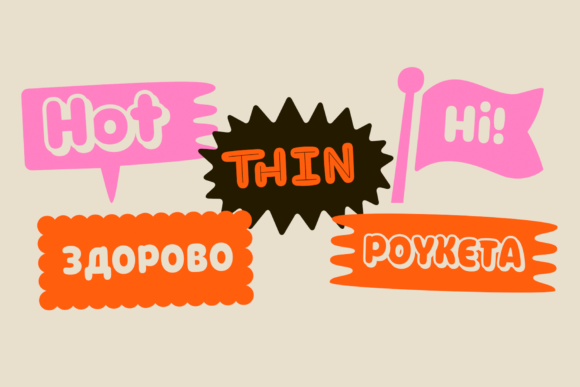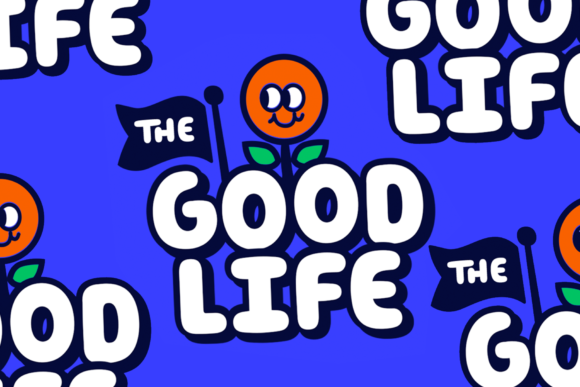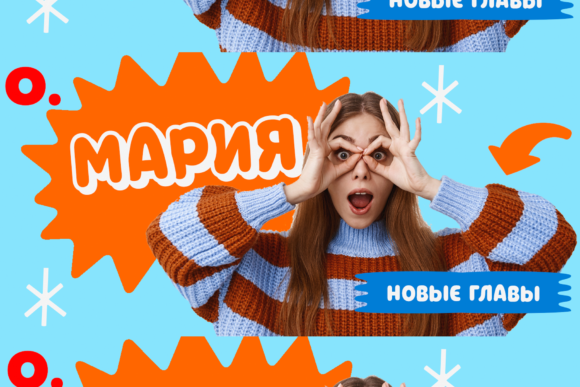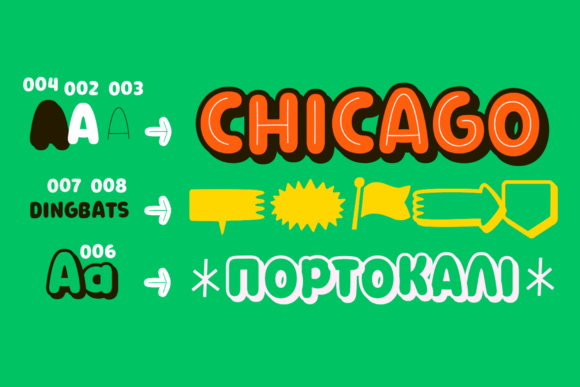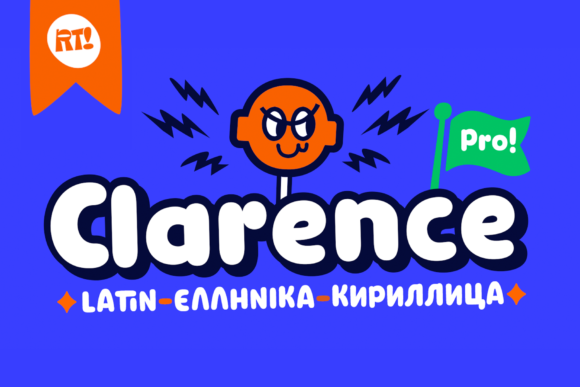
Introducing Clarence Pro Font: Elevate Your Designs with a Cool Display Font
Are you tired of using the same old fonts for your designs? Look no further! Clarence Pro Font is here to take your creative projects to the next level. This cool display font is perfect for designers and crafters who want to add a touch of uniqueness to their work. In this article, we’ll explore the features and benefits of Clarence Pro Font, and how it can elevate your designs.
What is Clarence Pro Font?
Clarence Pro Font is a stylish and modern display font that is designed to make a statement. Its sleek lines, elegant curves, and bold presence make it perfect for a variety of design projects, including posters, flyers, prints, and more. Whether you’re a professional designer or a crafty DIY enthusiast, Clarence Pro Font is sure to impress.
Key Features of Clarence Pro Font
• Unique and Stylish Design: Clarence Pro Font boasts a distinctive and stylish design that sets it apart from other fonts. Its modern and sleek lines make it perfect for designs that require a touch of sophistication.
• High-Quality and Versatile: This font is designed to be versatile and can be used for a wide range of projects, from posters and flyers to logos and branding materials.
• Easily Customizable: Clarence Pro Font is easy to customize, allowing you to adjust the font size, color, and style to suit your design needs.
Benefits of Using Clarence Pro Font
So, why should you choose Clarence Pro Font for your designs? Here are just a few benefits:
• Adds a Touch of Sophistication: Clarence Pro Font adds a touch of elegance and sophistication to your designs, making them stand out from the crowd.
• Increases Readability: The clear and bold design of this font ensures that your text is easily readable, even at small sizes.
• Saves Time and Effort: With Clarence Pro Font, you can create stunning designs in no time. Its versatility and ease of use save you time and effort, allowing you to focus on other creative aspects of your project.
Endless Possibilities with Clarence Pro Font
The possibilities are endless when it comes to using Clarence Pro Font. Here are a few ideas to get you started:
• Poster Design: Use Clarence Pro Font to create eye-catching posters for events, promotions, or announcements.
• Flyer Design: Add a touch of style to your flyers with this font, perfect for advertising, marketing, or informational materials.
• Branding and Logo Design: Use Clarence Pro Font to create a unique and memorable logo for your brand or business.
• Print Design: From business cards to brochures, Clarence Pro Font is perfect for a wide range of print design projects.
In conclusion, Clarence Pro Font is a cool display font that is sure to elevate your designs. With its unique and stylish design, high-quality and versatility, and ease of use, this font is perfect for designers and crafters alike. Whether you’re looking to add a touch of sophistication to your designs or simply want to try something new, Clarence Pro Font is a great choice. So why wait? Download Clarence Pro Font today and explore its endless possibilities!